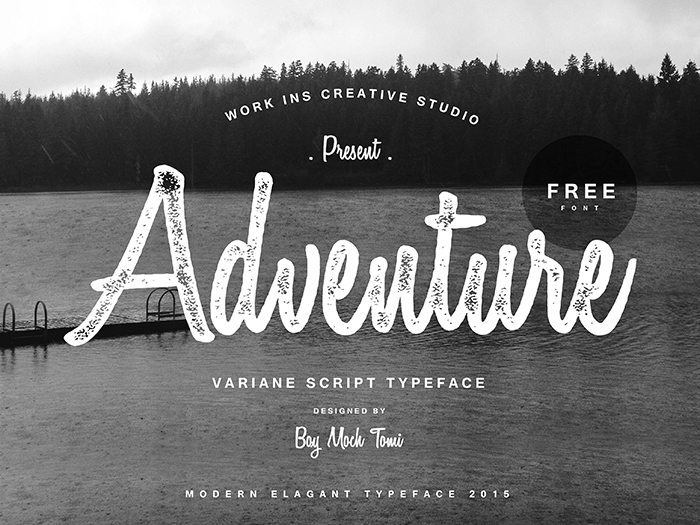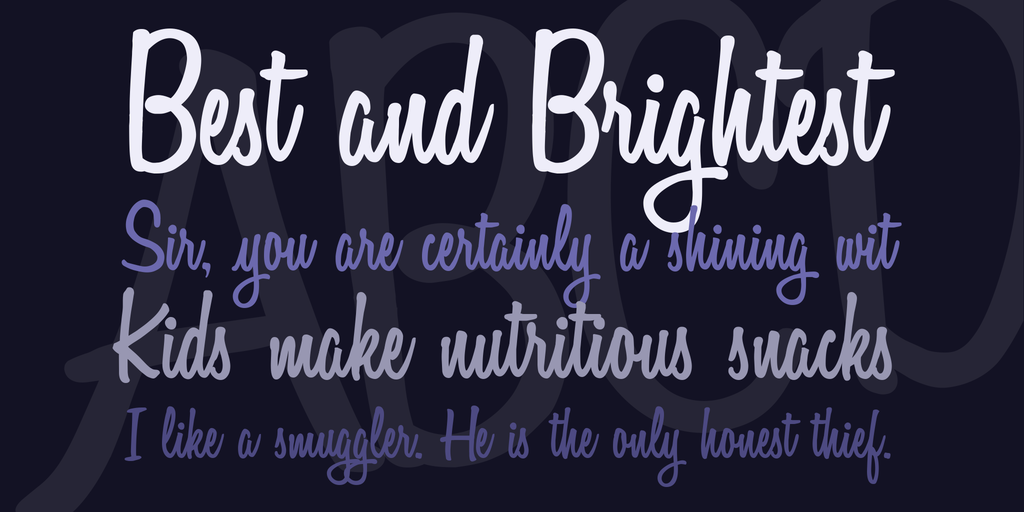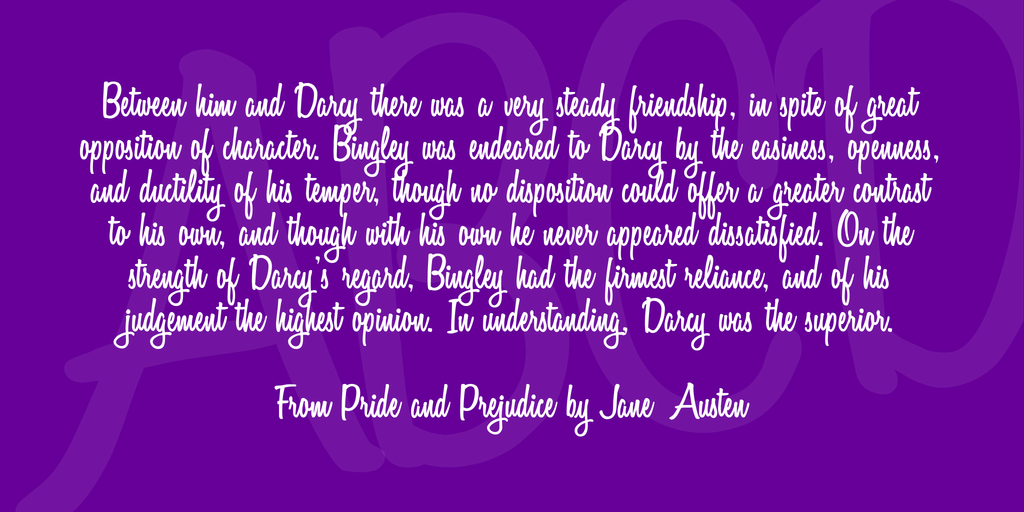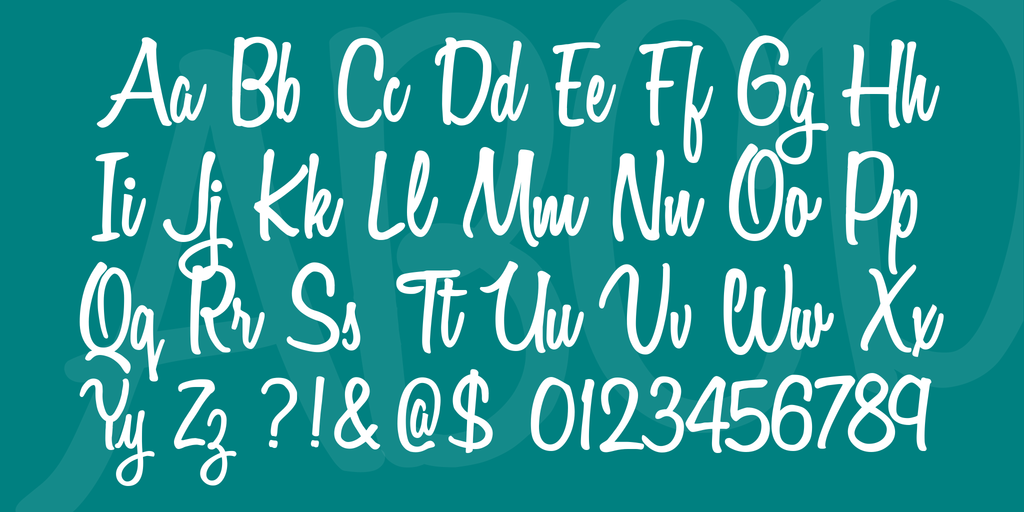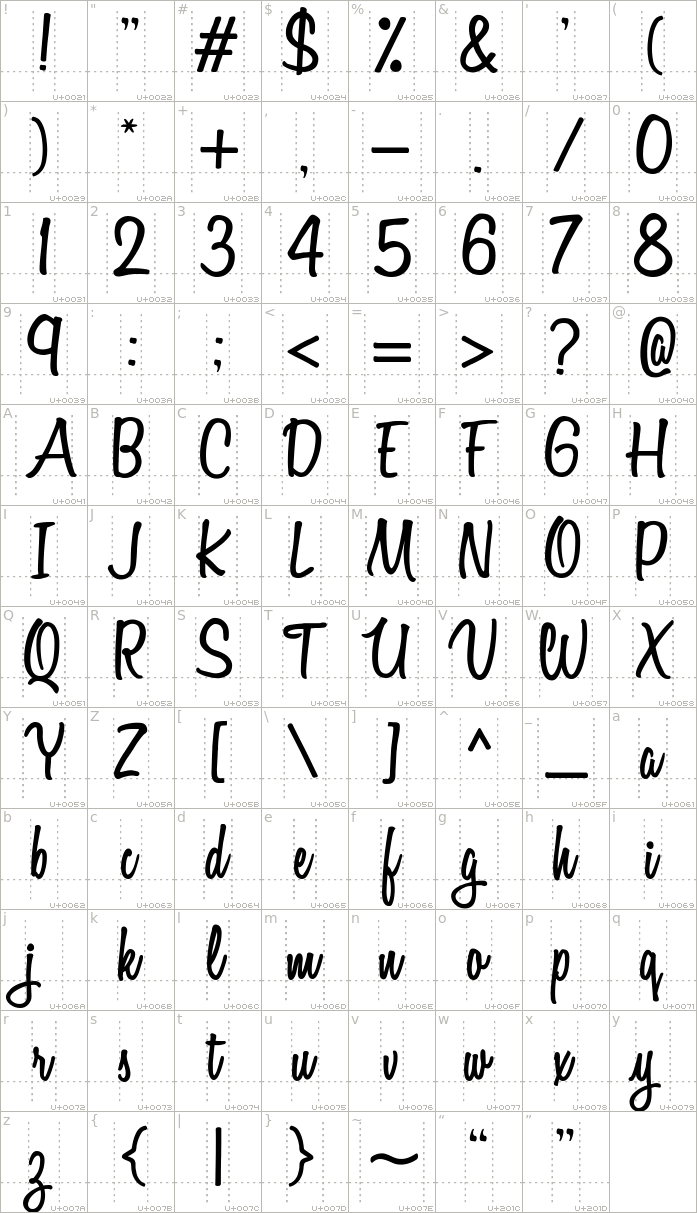
Variane Script
Variane Script font — Created in 2015 by Work Ins Studio
I tried to give my best on my first debut. I am very interested in the script because of its complexity and sometimes only a few of them are free to use. I hope that these fonts will be useful for everyone and can be introduced WORK INS STUDIO